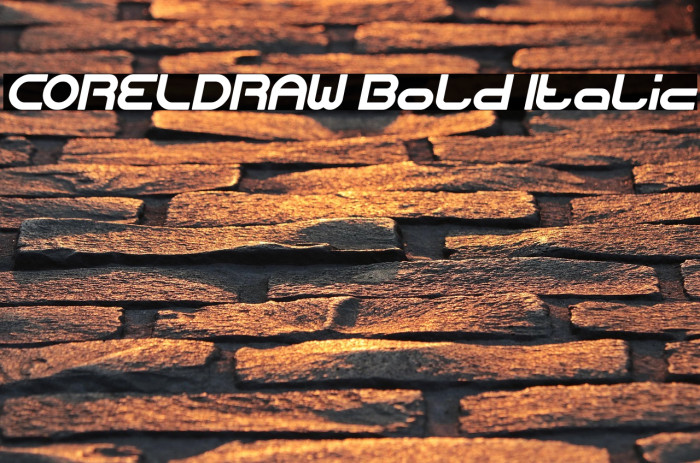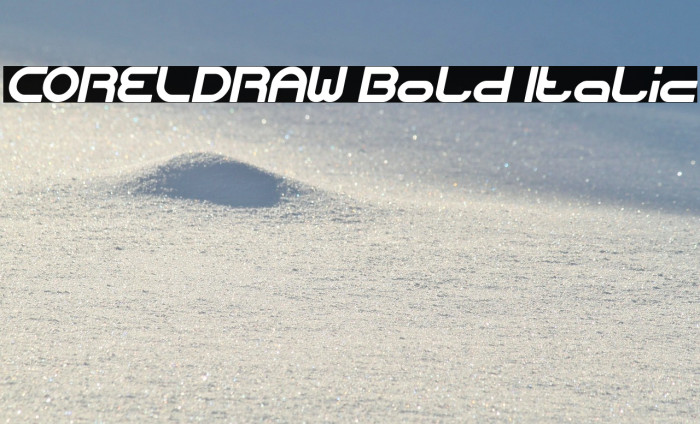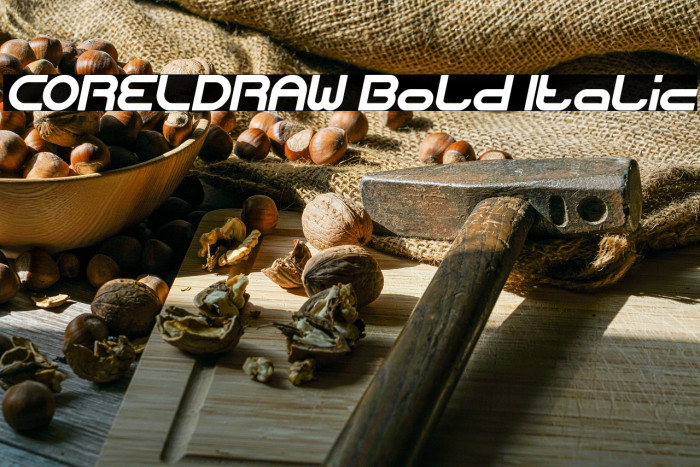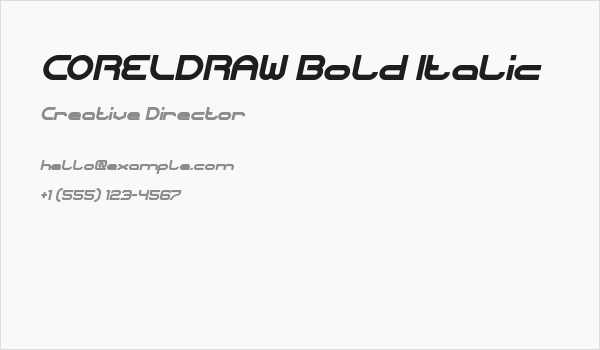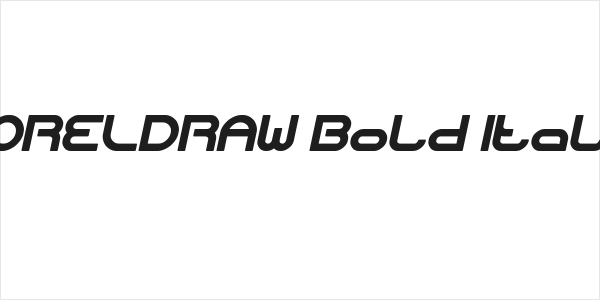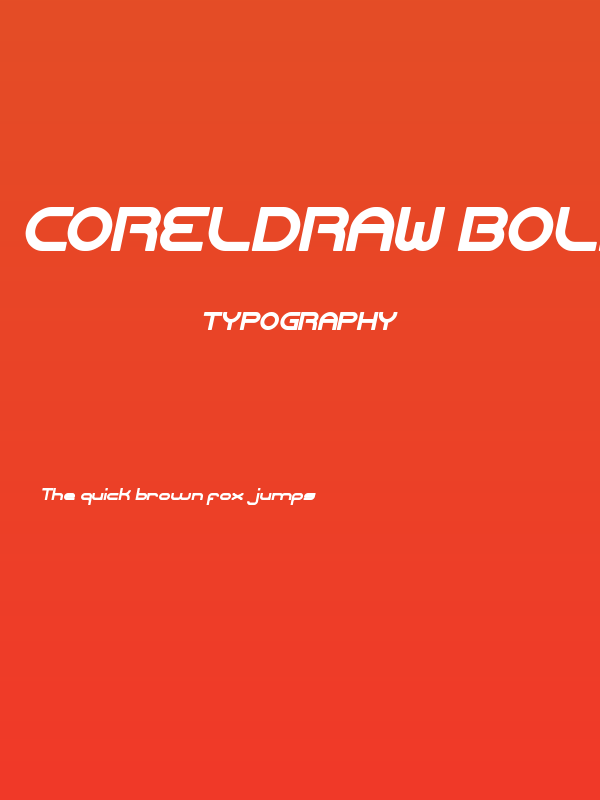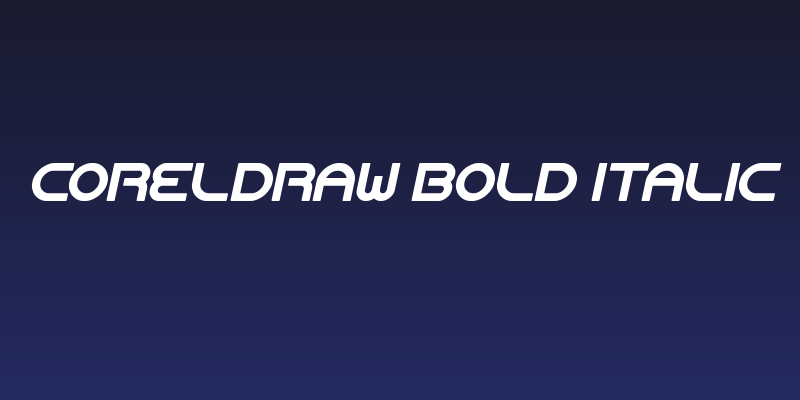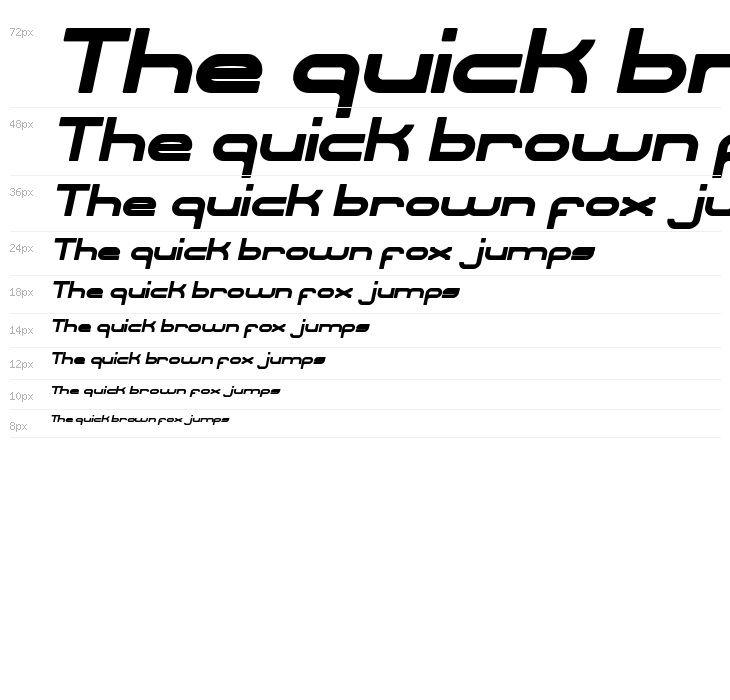
CORELDRAW Bold Italic Font
CORELDRAW Bold Italic Description
This font features a bold and italicized style with a modern and sleek appearance. The characters are slightly slanted, giving a dynamic and forward-moving impression. The strokes are thick and consistent, providing a strong presence on the page. The design includes rounded edges and smooth curves, which add a touch of softness to the otherwise robust and assertive look. The numbers and special characters maintain the same bold and italicized characteristics, ensuring uniformity across all glyphs. This font is well-suited for projects that require a contemporary and energetic feel.